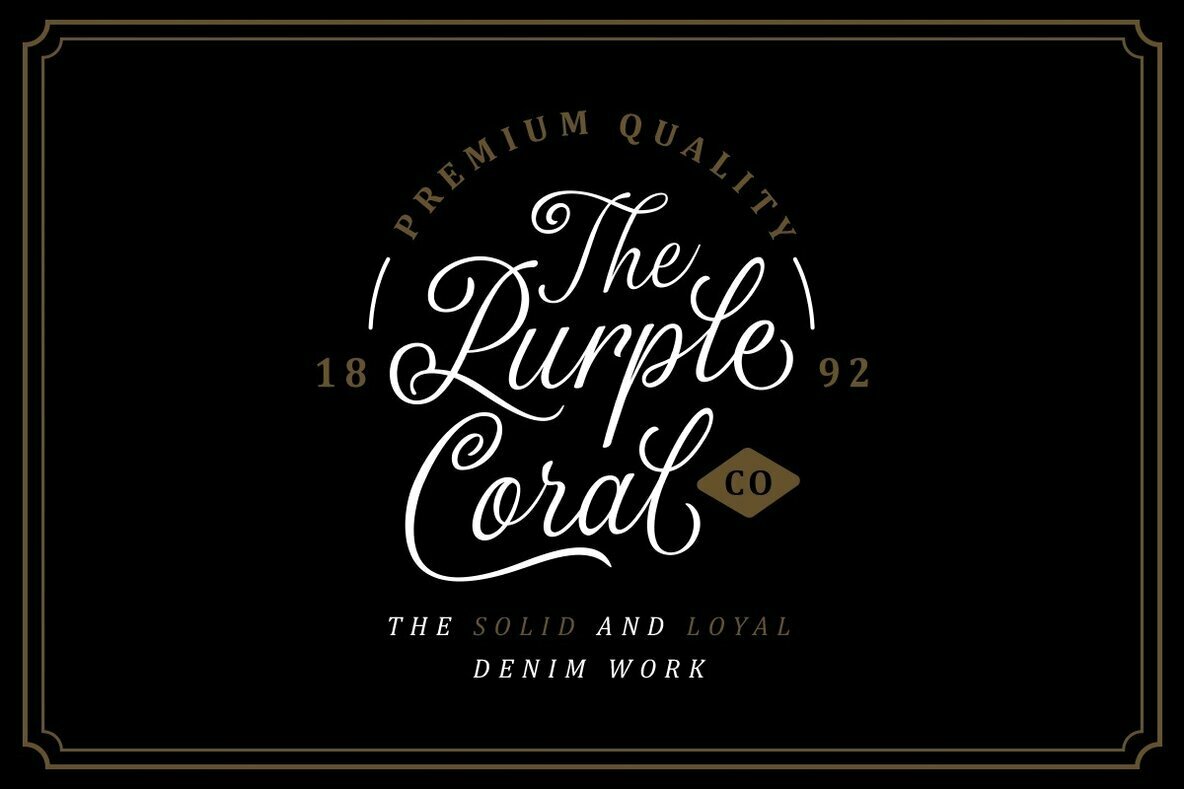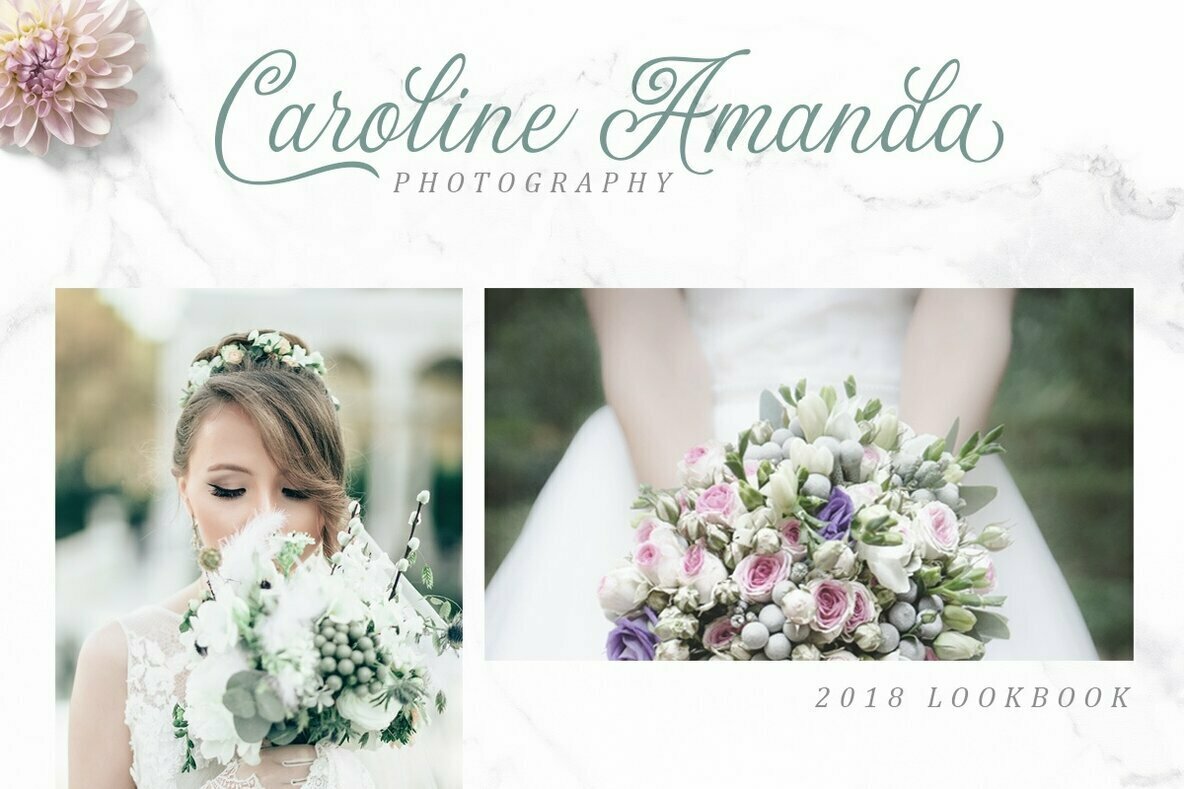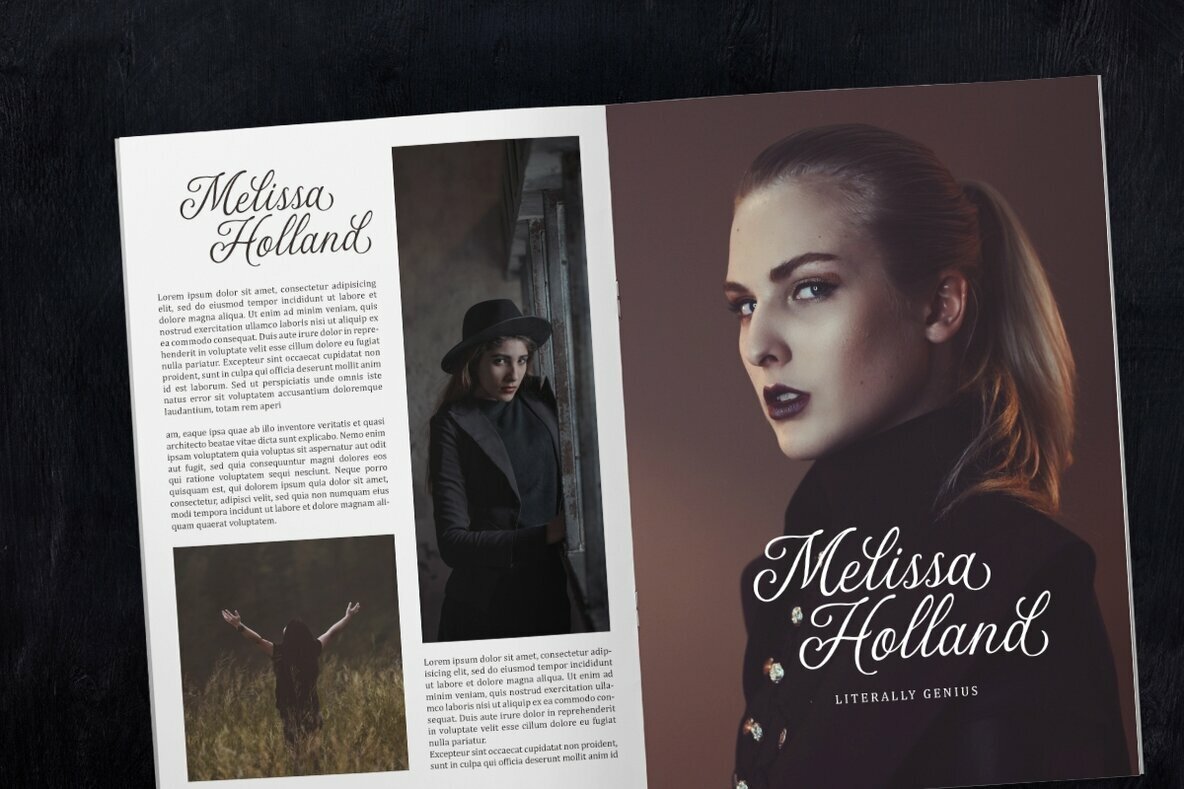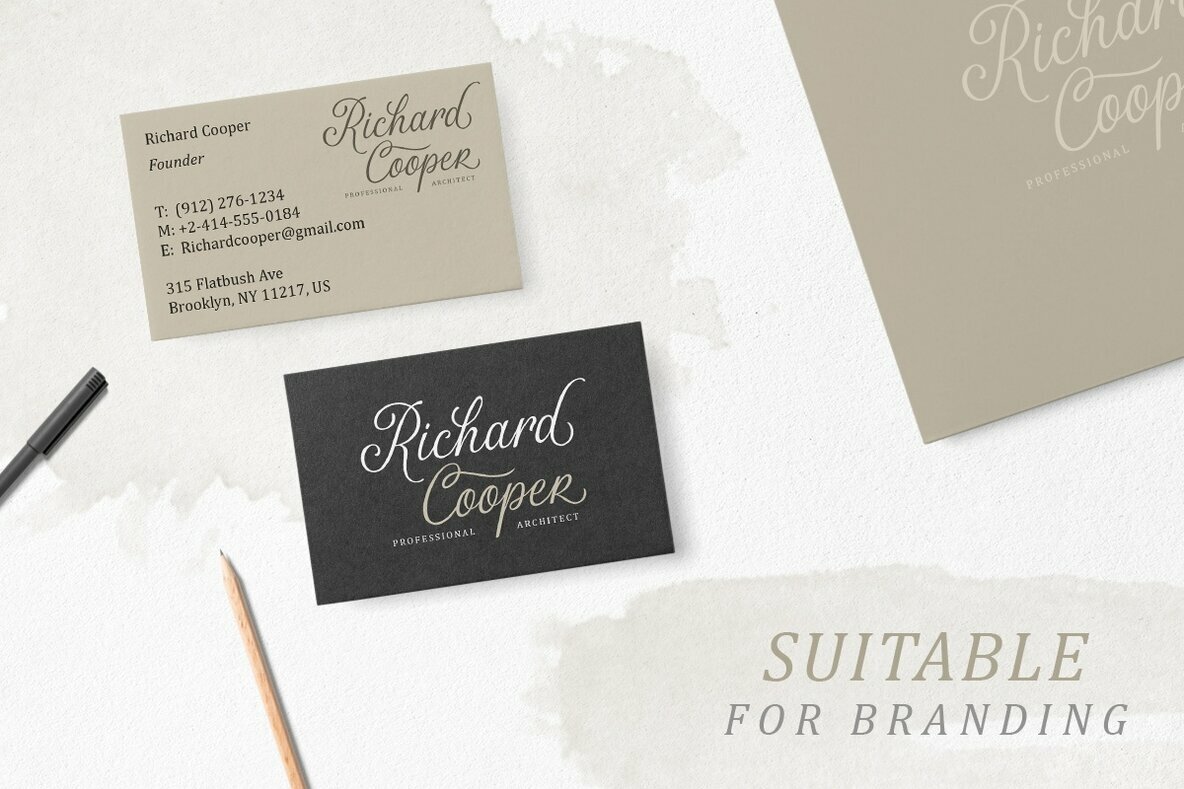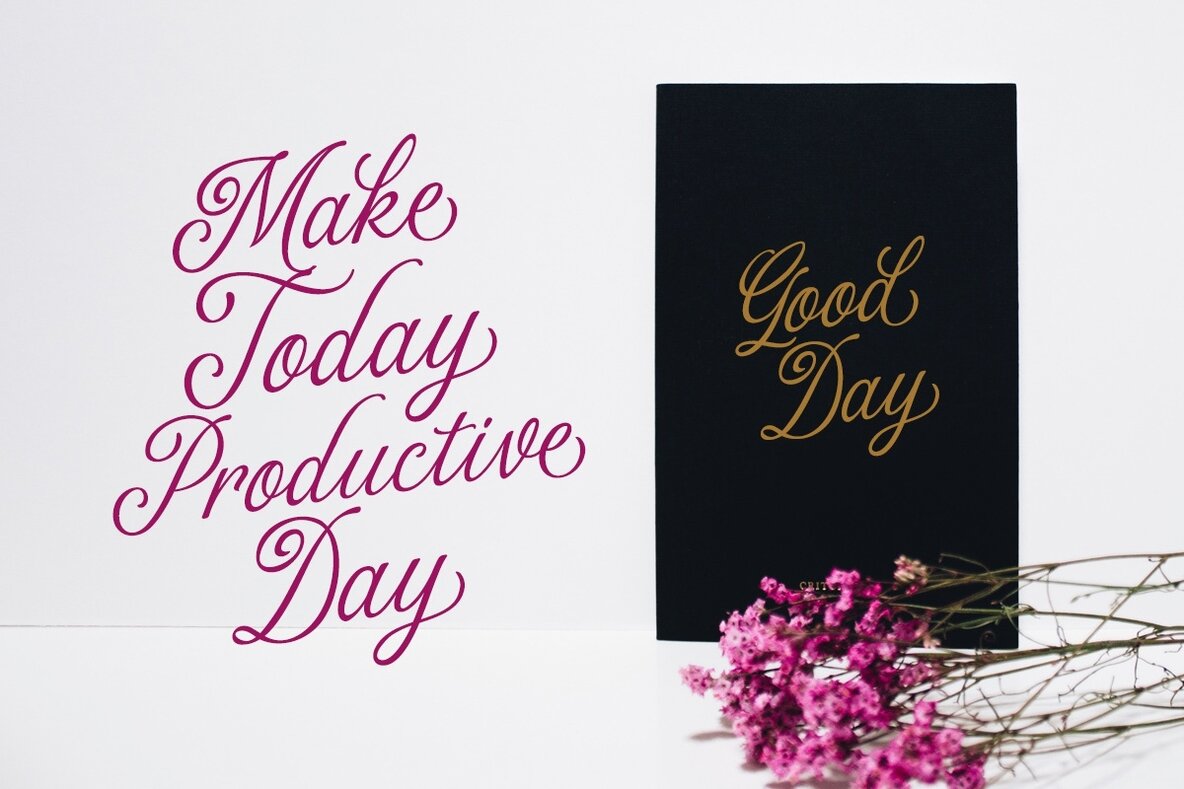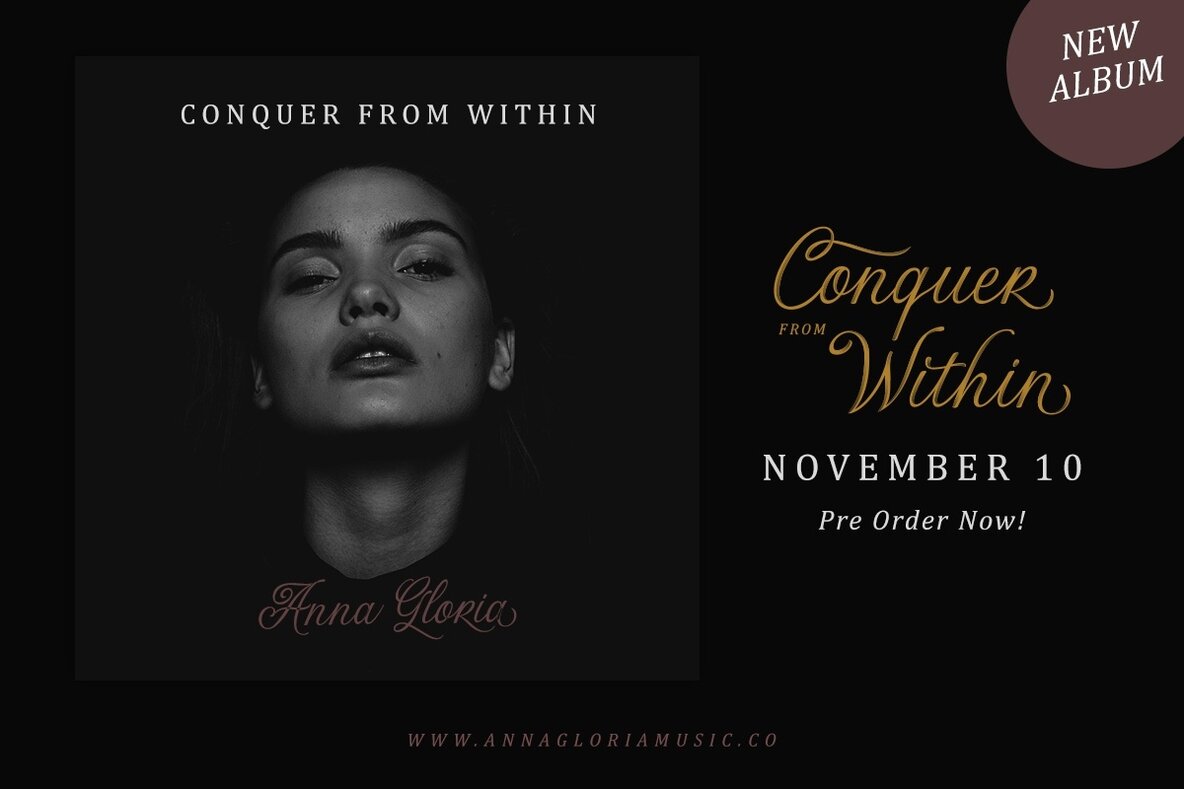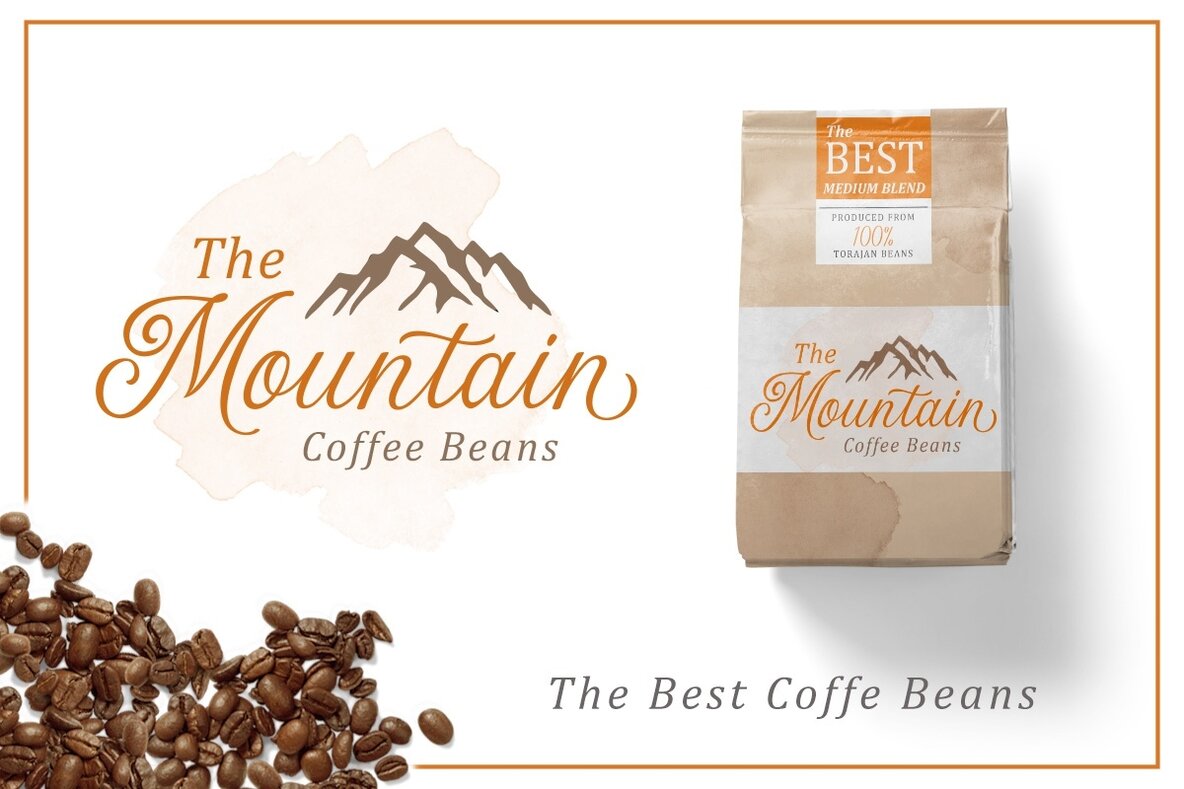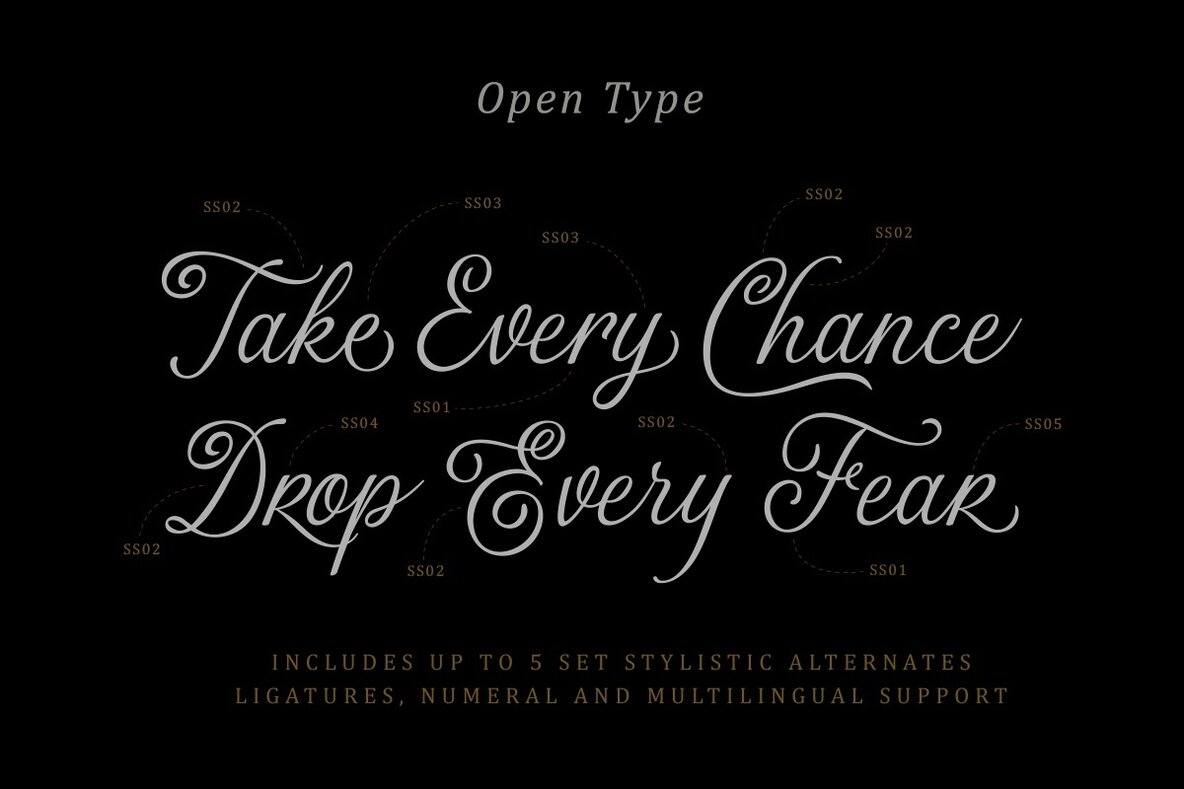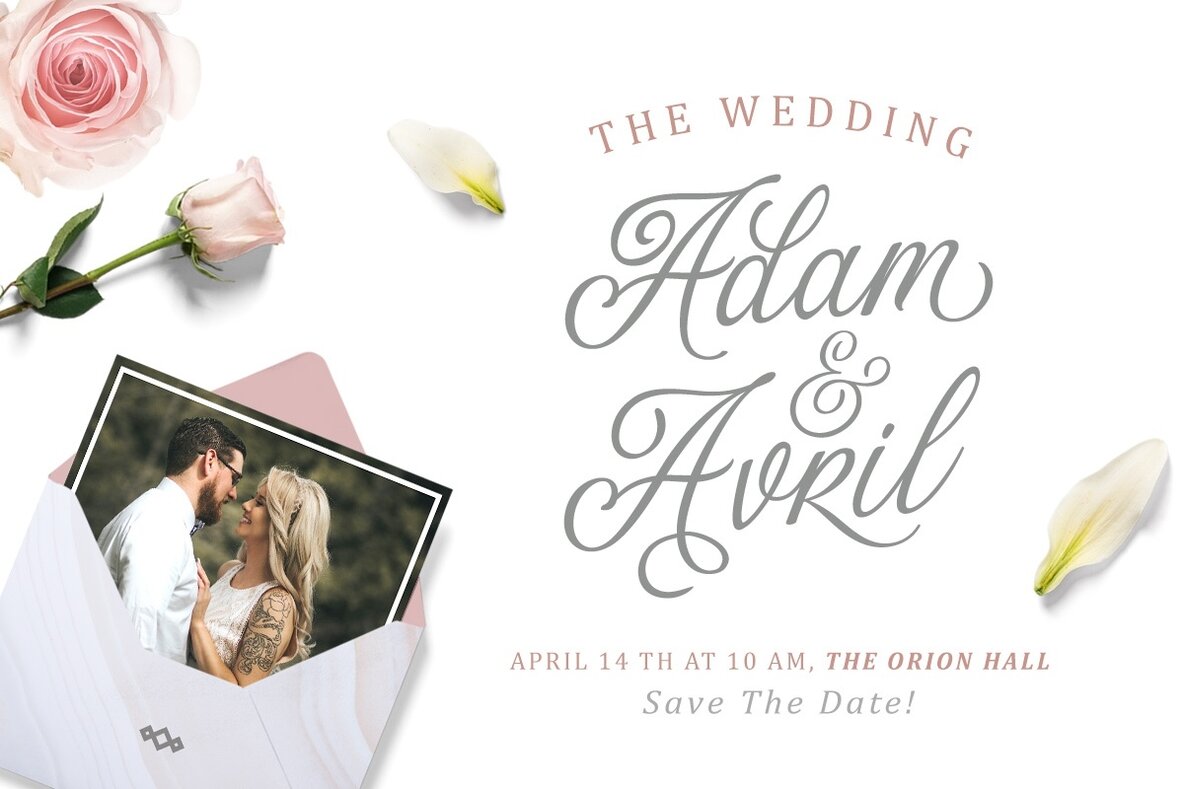
The Majority Font
The Majority
The Majority Script by Letterhend Studio encapsulates refined elegance and luxury in every stroke. Designed to bring a sophisticated touch to your creative projects, this font is ideal for everything from t-shirt designs to branding, signatures, headlines, and even inspirational quotes. The fluidity and grace of each letter are crafted to enhance the visual appeal of your work.The Majority Script: A Classy Typeface for Luxurious Designs